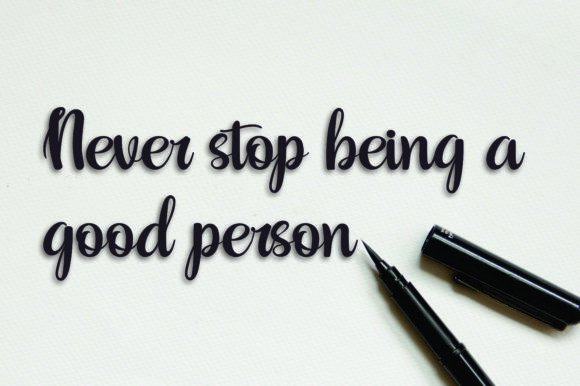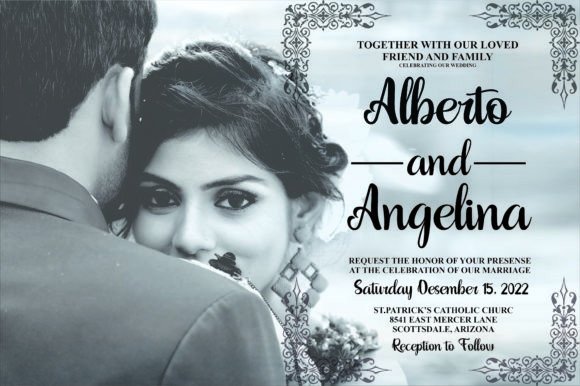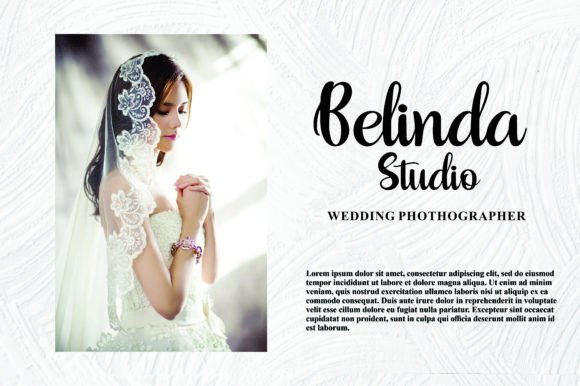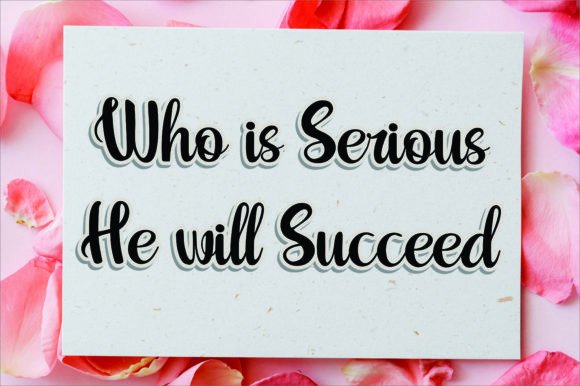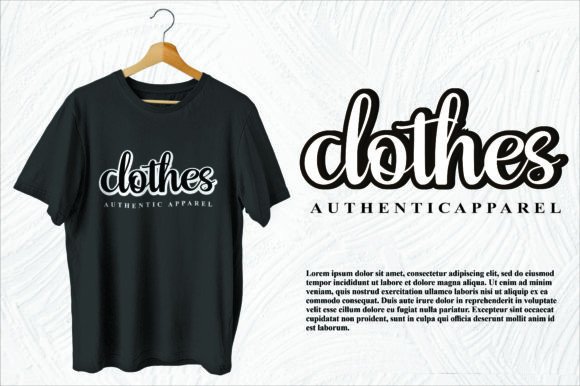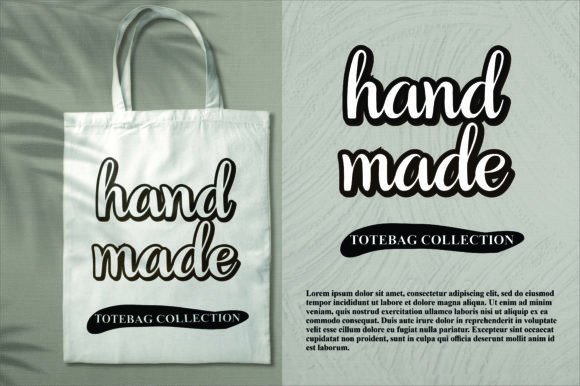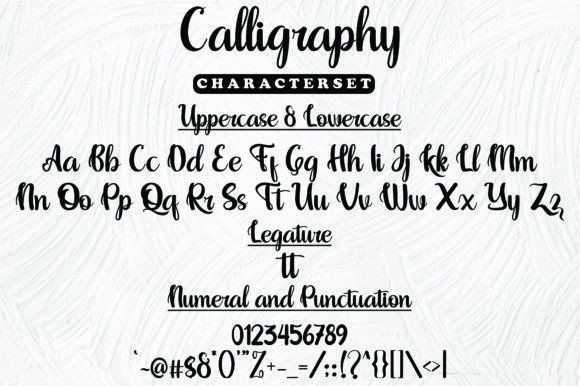
Calligraphy Font
About Calligraphy Font
Calligraphy is an exquisite handwritten font that blends traditional elegance with a fresh, modern feel. This font was masterfully designed to bring a sense of sophistication to any project. With its graceful curves and refined style, it will quickly become a favorite in your font collection.
From elegant branding to creative DIY projects, Calligraphy adapts beautifully to any context. Each letter is carefully drawn to capture the timeless beauty of classic calligraphy while maintaining a contemporary edge that feels current and stylish.
A Perfect Balance of Classic and Modern
What makes Calligraphy stand out is how it balances old-world charm with a fresh, updated look. The strokes are smooth and fluid, giving your text a luxurious feel. Yet the design remains clean and uncluttered, so it never looks outdated or overly ornate.
Whether you need a formal touch or a modern flourish, this font delivers every time.
Endless Creative Possibilities
Calligraphy is versatile enough to use in many design projects. Here are a few ideas:
• Logos and Branding: Perfect for luxury brands, boutiques, and artisan shops.
• Wedding Invitations: Create beautiful stationery that feels timeless and elegant.
• Social Media Graphics: Make posts stand out with a sophisticated handwritten style.
• Product Packaging: Add class to labels and boxes.
• Greeting Cards: Elevate any occasion with refined lettering.
• Posters and Quotes: Turn words into artwork.
• Website Headers: Give your site a polished, high-end look.
Why Designers Love Calligraphy
• Timeless Style: Always elegant, never dated.
• Smooth Flow: Each character transitions beautifully to the next.
• Readable: Even with decorative flourishes, text stays clear.
• Flexible: Works for formal and casual themes.
• Professional Finish: Adds a premium look to any project.
1. Pair with a Serif or Sans Serif: To create contrast and balance.
2. Use Light Backgrounds: Let the elegant strokes shine.
3. Experiment with Color: Try golds, neutrals, or soft pastels.
4. Adjust Spacing: Fine-tune kerning for perfect flow.
5. Add Simple Graphics: Accents like lines or flourishes complete the look.
Calligraphy isn’t just a font—it’s a tool to bring grace and style to everything you create. Whether you’re designing wedding suites, logos, or social media posts, this font will help your work stand out.
Its blend of classic calligraphic influence and modern flair makes it a must-have for designers who want to make a lasting impression.